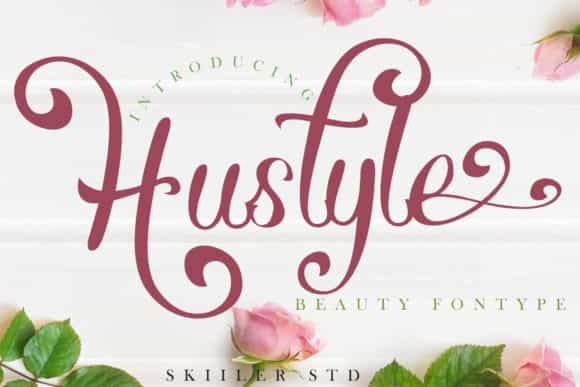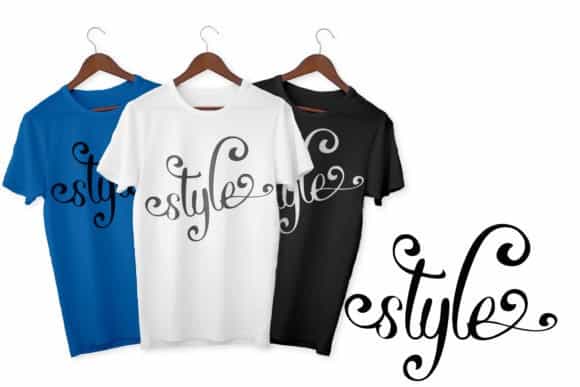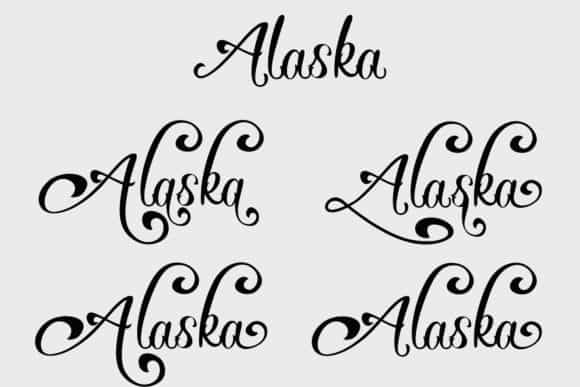
Hustyle is a digital calligraphy font made by Skiiller Studio. The combination of the lively bouncing with the romantic elegance makes this font ideal for invitations, logos and other special projects.